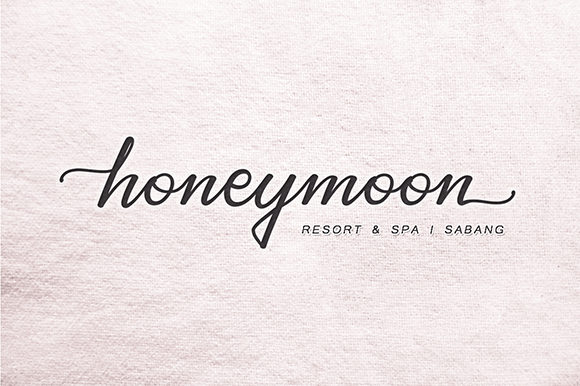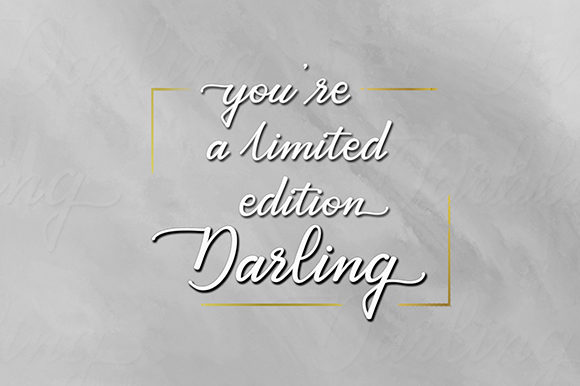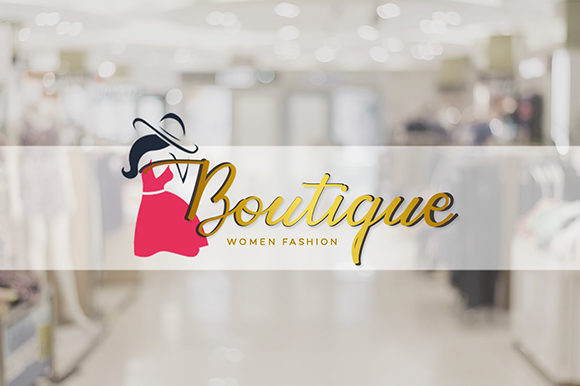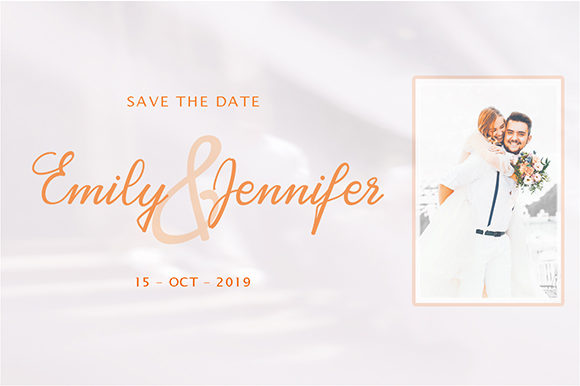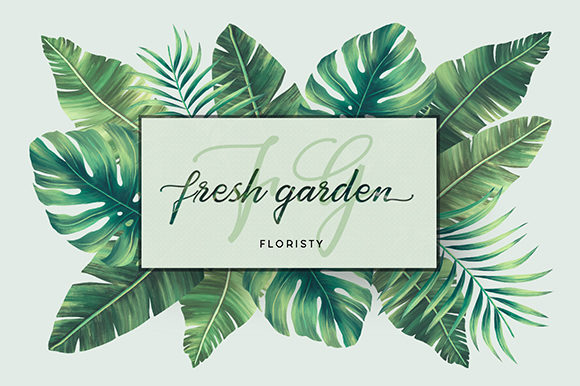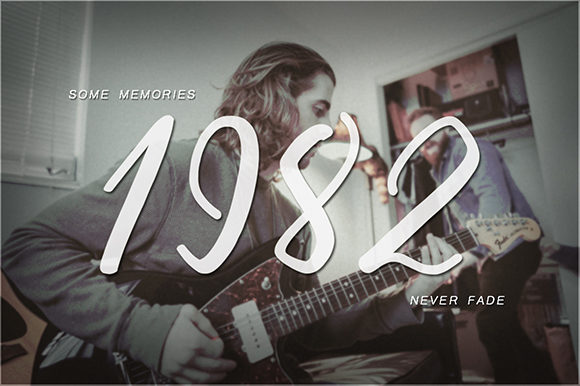
Discover the Unique Charm of Ayrton Pight Font
As a designer, there’s nothing quite like the thrill of stumbling upon a new font that sparks inspiration. You’re working on a project, and suddenly, a particular font catches your eye. It’s as if the entire design begins to fall into place, and you can envision the perfect outcome. For many of us, this moment is a defining experience that sets our creative juices flowing.
One such font that has captured the hearts of designers is the Ayrton Pight Font. This calligraphic font boasts beautiful characters that add a touch of elegance to any design. Its purpose is to provide a unique and stylish alternative to traditional fonts, making it an excellent choice for designers seeking to add some flair to their work.
For designers, Ayrton Pight Font is a valuable asset, offering a wide range of creative possibilities. Its versatility makes it suitable for various projects, from invitations to logos, and its beautiful characters are sure to leave a lasting impression.
Ayrton Pight Font Key Features
- Font Family: Ayrton Pight is a unique, handwritten font designed for various applications.
- Unique Characteristics: Features a distinctive, hand-drawn style with subtle imperfections, adding a touch of personality to any design.
Ayrton Pight Font Review
I recently had the chance to work with the Ayrton Pight font, and I must say it’s a unique and interesting addition to any design project. ✨ One of the things that stands out about this font is its versatility – it can be used for a wide range of projects, from elegant wedding invitations to modern corporate branding.
Another thing that I appreciate about Ayrton Pight is its customizability. ✨ The font offers a range of OpenType features, including ligatures, swashes, and alternates, which can be used to add a touch of personality to your designs. The font also includes a range of stylistic sets, which can be used to create different moods and atmospheres.
- ⚠️ The font may not be suitable for projects that require a lot of text, as it can be quite decorative and may be difficult to read in large quantities.
- ⚠️ The font’s unique style may not be to everyone’s taste, and some designers may find it too ornate or flashy.
Overall, I think the Ayrton Pight font is a great addition to any designer’s toolkit. While it may have some limitations, its unique style and customizability make it a great choice for projects that require a touch of elegance and sophistication.
The Ayrton Pight Font is suitable for various design projects, including:
- Business cards and stationery
- Marketing materials and advertisements